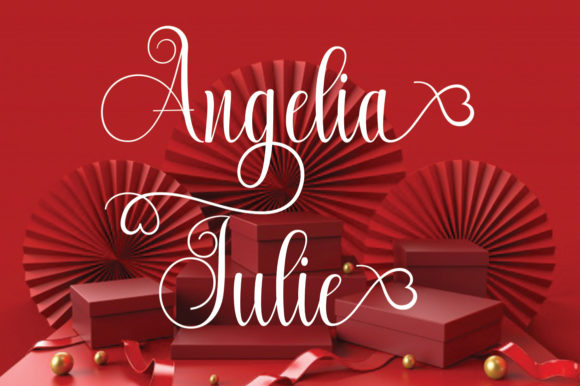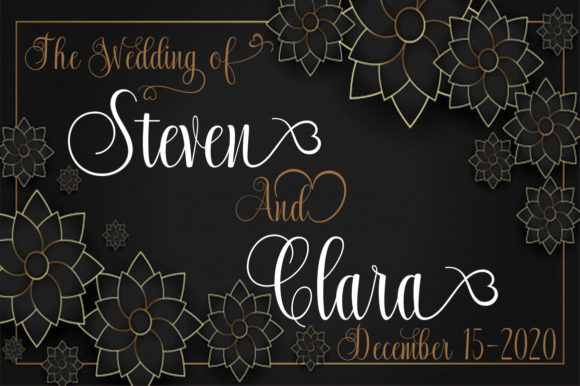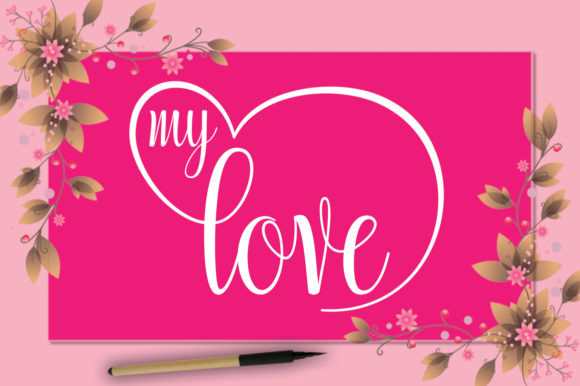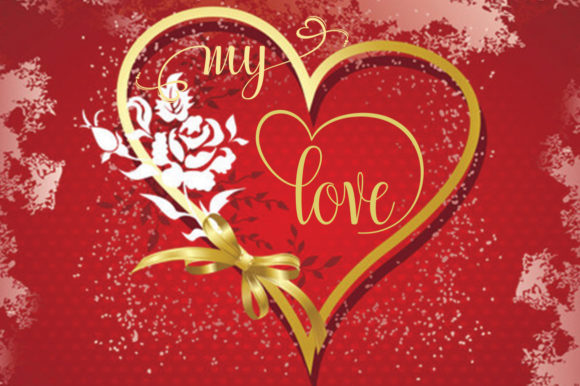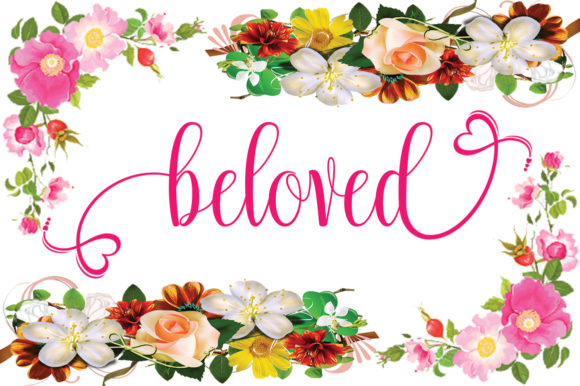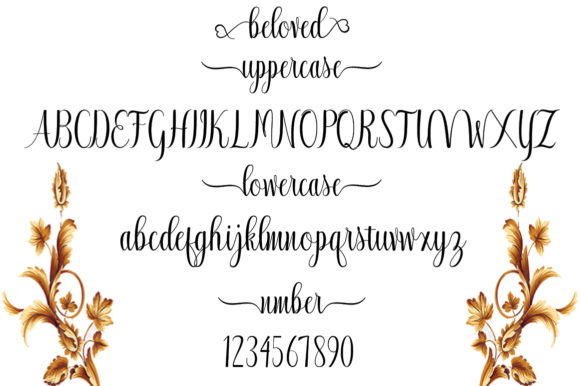
Introducing Beloved Font: The Ultimate Handwritten Script for Creative Projects
Are you tired of using the same old fonts for your creative projects? Look no further! Beloved Font is a beautiful, handwritten script that is sure to add a touch of personality to any design. With its incredibly friendly feel, gorgeous swashes, and ligatures, Beloved is the perfect font for designers, crafters, and DIY enthusiasts alike.
What Makes Beloved Font So Special?
Beloved Font is a cute and casual handwritten font that is designed to make your creative projects stand out. Its unique and friendly feel makes it perfect for a wide range of applications, from social media graphics and Instagram posts to calligraphy scripts and DIY projects. Whether you’re looking to add a personal touch to your designs or create something truly special, Beloved Font is the perfect choice.
Key Features of Beloved Font
- Gorgeous Swashes: Beloved Font features beautiful swashes that add a touch of elegance and sophistication to any design.
- Ligatures: The font also includes ligatures, which help to create a more natural and fluid look.
- Cute and Casual: Beloved Font has a cute and casual feel that makes it perfect for a wide range of creative projects.
- Incredibly Friendly: The font’s friendly feel makes it perfect for designs that need to convey a sense of approachability and warmth.
- Versatile: Beloved Font is incredibly versatile, making it perfect for everything from social media graphics to calligraphy scripts.
Uses for Beloved Font
Beloved Font is perfect for a wide range of creative projects, including:
- Social Media Graphics: Use Beloved Font to create eye-catching social media graphics that are sure to grab attention.
- Instagram Posts: Add a personal touch to your Instagram posts with Beloved Font.
- Calligraphy Scripts: Use Beloved Font to create beautiful calligraphy scripts for DIY projects.
- DIY Projects: Beloved Font is perfect for a wide range of DIY projects, from handmade cards to home decor.
- Branding: Use Beloved Font to create a unique and memorable brand identity.
Why Designers and Crafters Love Beloved Font
Designers and crafters love Beloved Font for its unique and friendly feel. The font’s gorgeous swashes and ligatures make it perfect for creating beautiful and eye-catching designs. Additionally, Beloved Font is incredibly versatile, making it perfect for a wide range of creative projects.
Tips for Using Beloved Font
- Experiment with Different Sizes: Beloved Font looks great in a variety of sizes, so don’t be afraid to experiment.
- Pair with Other Fonts: Beloved Font pairs well with a wide range of other fonts, so try pairing it with different fonts to create a unique look.
- Use Swashes and Ligatures: Don’t be afraid to use the font’s gorgeous swashes and ligatures to add a touch of elegance and sophistication to your designs.
Beloved Font is a beautiful and versatile handwritten script that is perfect for designers, crafters, and DIY enthusiasts alike. With its incredibly friendly feel, gorgeous swashes, and ligatures, Beloved Font is sure to add a touch of personality to any design. Whether you’re looking to create social media graphics, calligraphy scripts, or DIY projects, Beloved Font is the perfect choice.